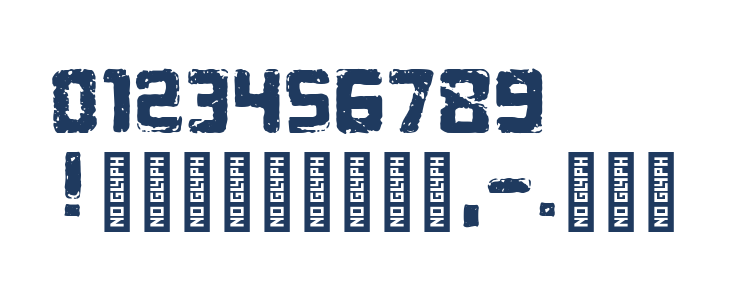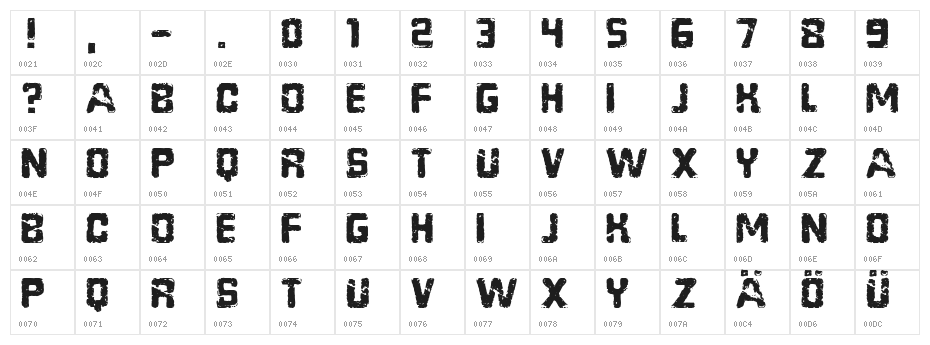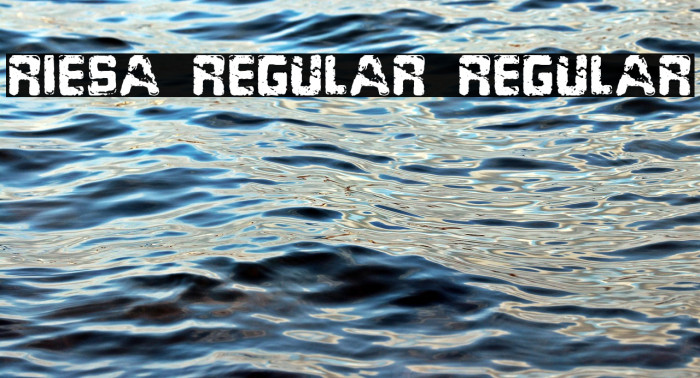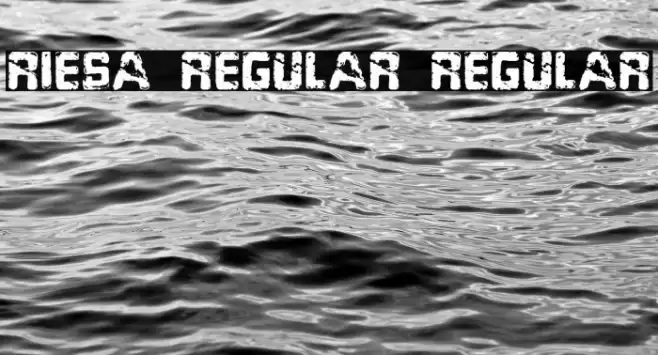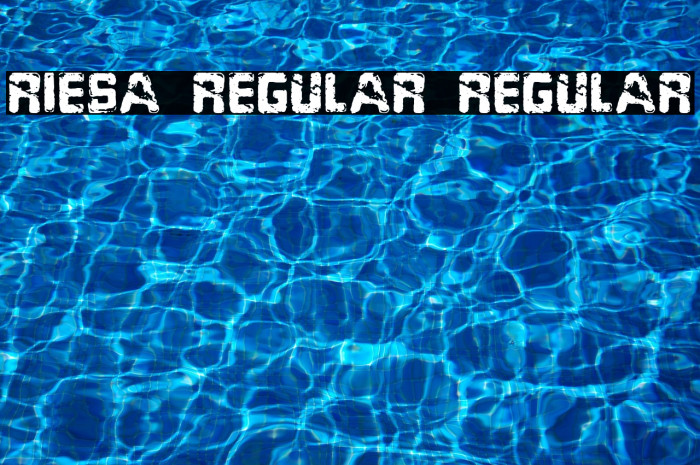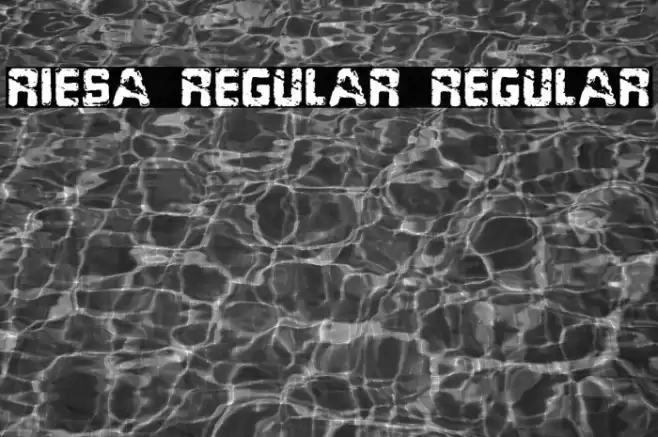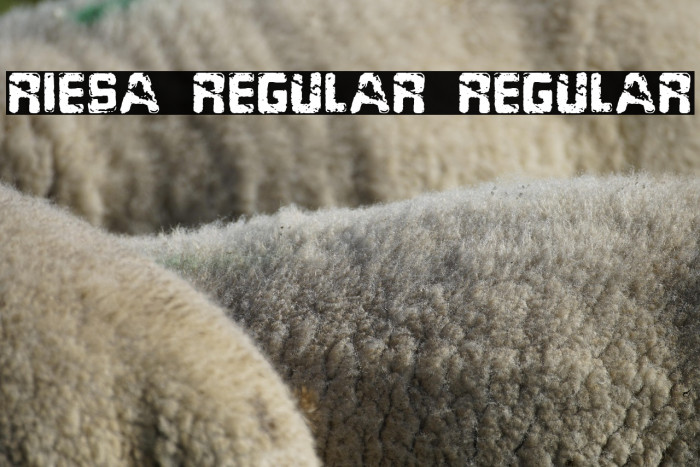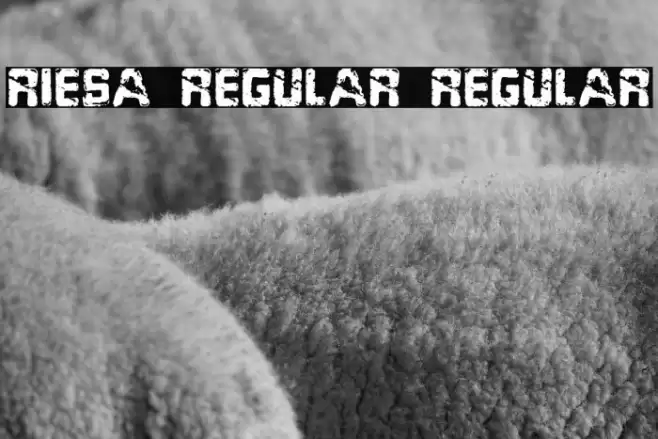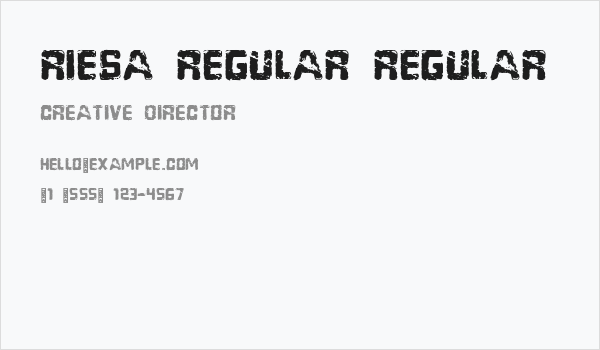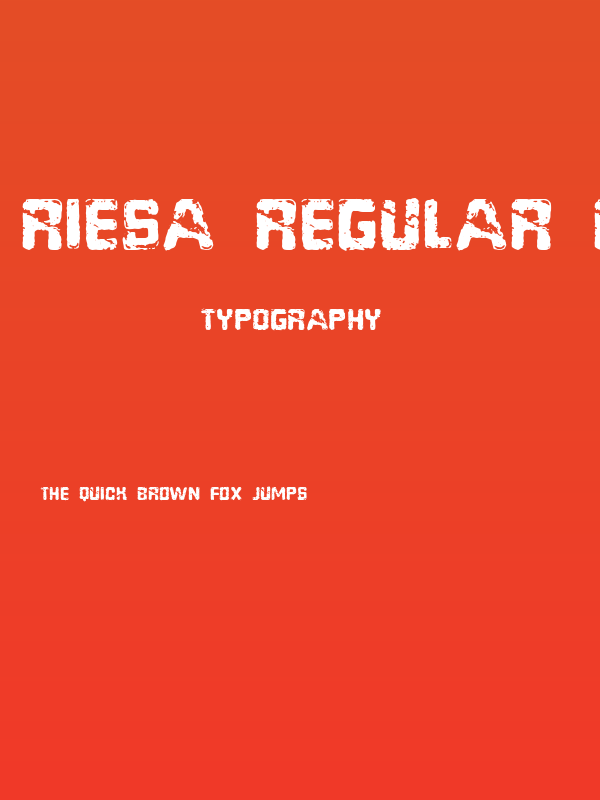
Riesa Regular Font
Riesa Regular Description
This font features a rugged, distressed style that gives it a worn, vintage appearance. The characters are bold and impactful, with a textured look that suggests a hand-crafted or weathered effect. Each letter is uniquely detailed, contributing to an overall aesthetic that is both eye-catching and distinctive. The uppercase and lowercase letters maintain a consistent design, while the numbers and special characters complement the font's rough and artistic style. This font is ideal for projects that require a bold statement or a touch of grunge and character.
Overall StyleVintage
Proposed ProjectsIdeal for posters, album covers, branding, and any design needing a bold, vintage touch.